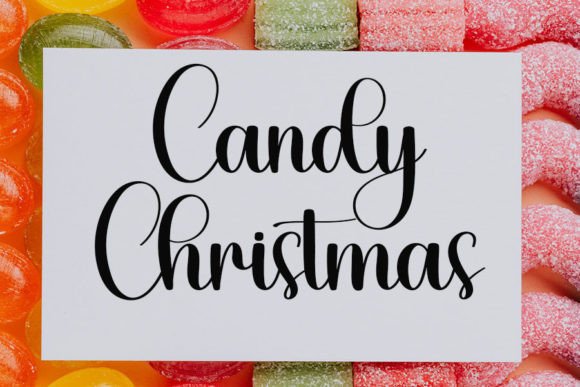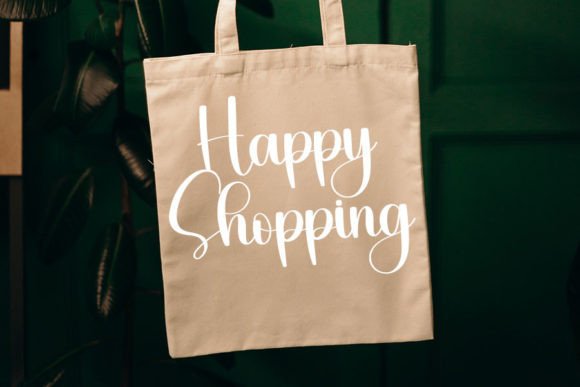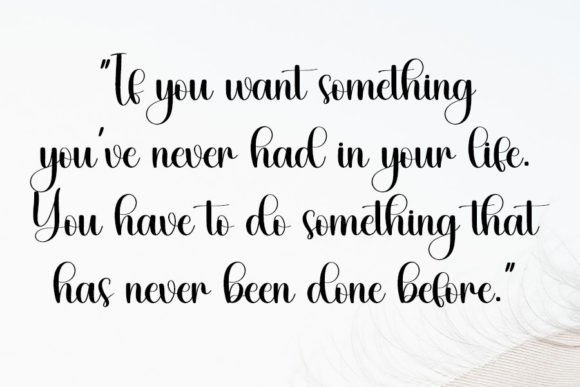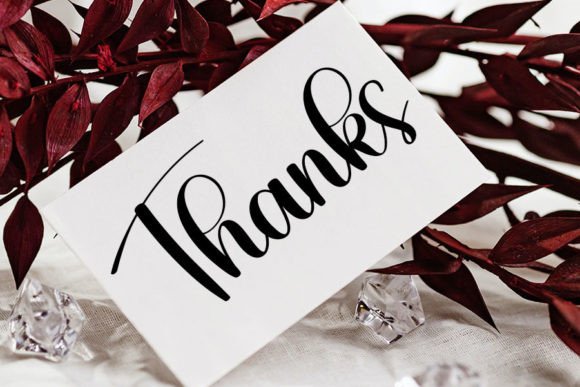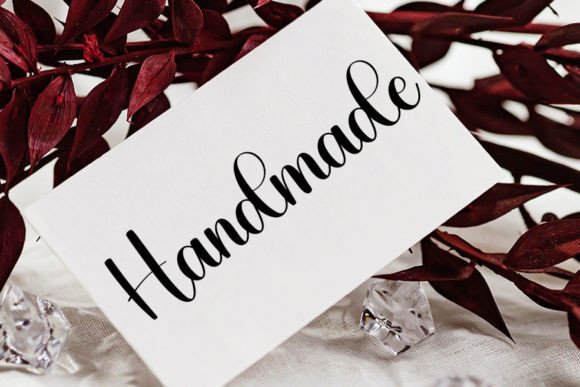
Should Font
About Should Font
Should font is a simple and friendly handwritten typeface designed to add a warm and approachable feel to your creative projects. Its clear and casual style makes it a versatile choice for many design needs, bringing a personal touch to your work.
Simple and Friendly Handwriting Style
The appeal of Should font comes from its neat, easy-to-read characters that maintain a natural handwritten look. Each letter is carefully crafted to feel authentic and inviting. This font blends simplicity with charm, making your designs feel more engaging and relatable.
Versatile Uses of ShouldFont
Should font is perfect for a variety of creative projects, such as:
• Crafting and DIY projects
• Digital presentations and social media posts
• Greeting cards and invitations
• Branding and marketing materials
This font’s adaptable style works well for both informal and professional designs.
Adding a Personal Touch to Your Designs
Using Shouldfont allows you to infuse your projects with a genuine and friendly vibe. The handwritten aesthetic helps build emotional connections with your audience, enhancing the impact of your designs. Whether for personal crafts or business presentations, thisfont offers clarity and warmth.
Summary
In summary, Shouldfont is a simple and friendly handwritten typeface ideal for crafts, digital design, presentations, and greeting cards. Its warm and clear style makes it a versatile choice for any project.